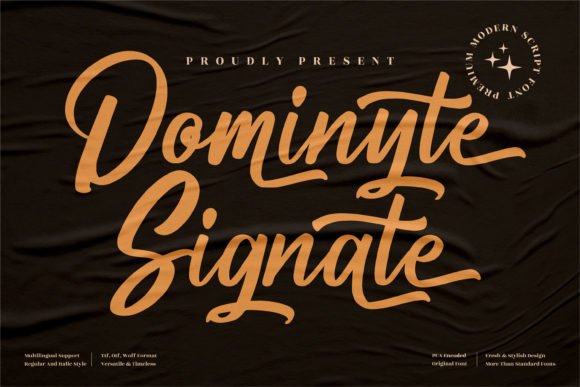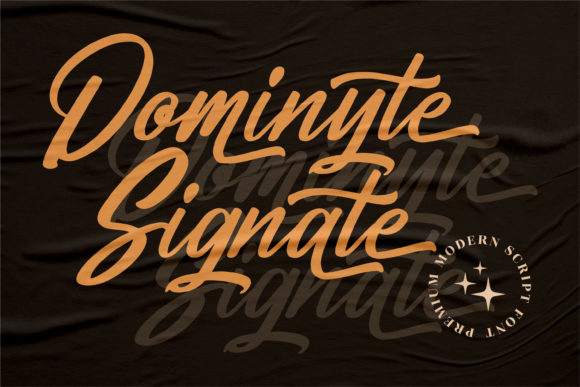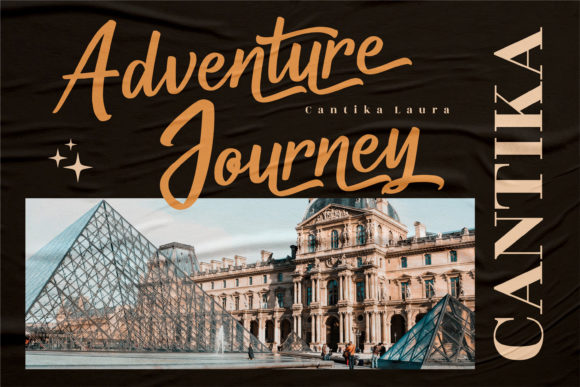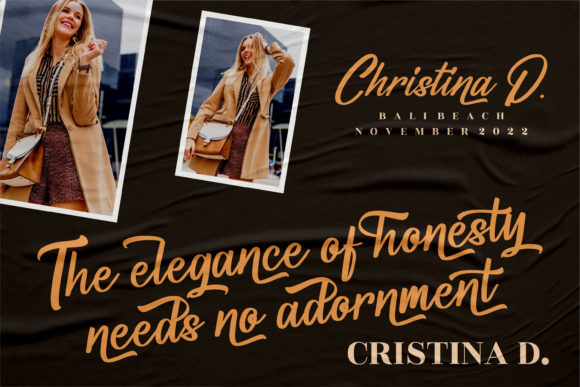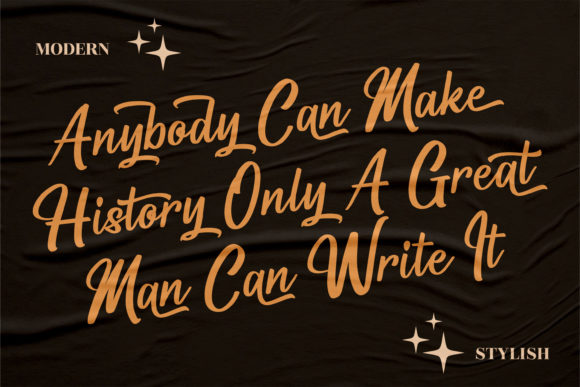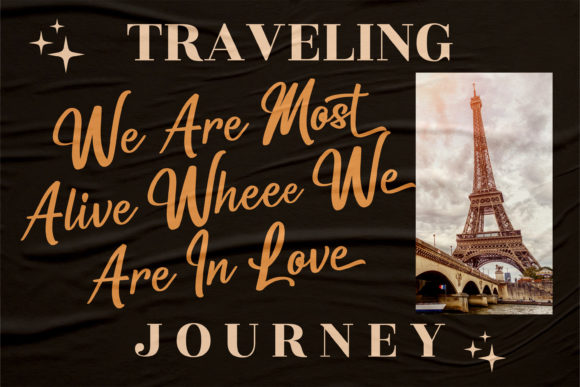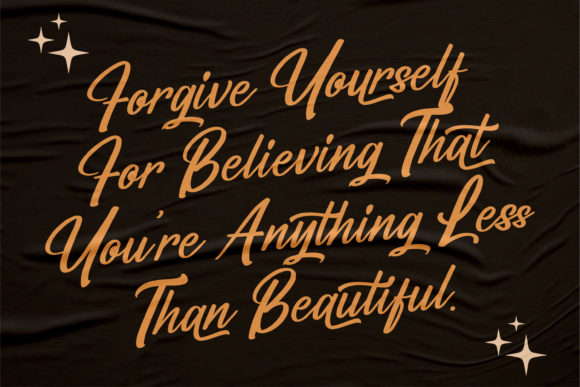
Discover the Whimsy of Dominyte Signate Font
Have you ever been working on a design project, and suddenly, the perfect font pops into your head, bringing your entire concept to life? That’s exactly what happened to me when I stumbled upon the enchanting Dominyte Signate Font. Its charming, playful characters seem to dance along the baseline, adding a touch of whimsy to any design.
As a versatile script font, Dominyte Signate Font is perfect for a wide range of applications, from elegant invitations and wedding stationery to fun and quirky social media graphics. Its PUA encoding makes it easy to access all the amazing glyphs and ligatures, giving you the freedom to get creative and experiment with different combinations.
For designers, Dominyte Signate Font is a valuable addition to any font collection, offering a unique and eye-catching style that’s sure to elevate your designs and set them apart from the crowd.
Dominyte Signate Font Key Features
- Font Family: Dominyte Signate Font is a unique, high-end font family designed for luxury branding and premium designs.
- Unique Characteristics: Features intricate details, subtle nuances, and elegant lines that evoke a sense of sophistication and refinement.
Designer Review: Dominyte Signate Font
Overall, I have mixed feelings about the Dominyte Signate Font. While it has some great qualities, it falls short in certain areas. Let’s dive in and explore what works well and what doesn’t.
- ✨ Unique character set: Dominyte Signate Font has a distinctive set of characters that can add a touch of elegance to your designs.
- ✨ Good for titles: The font is well-suited for use in titles and headings due to its strong, bold lines.
- ⚠️ Limited legibility: At smaller font sizes, the characters can become difficult to read, which may limit its use in body text.
- ⚠️ Limited language support: Dominyte Signate Font may not support all languages, which can be a problem for designers working on international projects.
- ⚠️ Not ideal for paragraphs: The font’s unique character set can make it difficult to read in large blocks of text.
While Dominyte Signate Font has some great qualities, its limitations may make it less suitable for certain design projects. If you’re looking for a font to use in titles or headings, it’s definitely worth considering. However, for body text or paragraphs, you may want to explore other options.
Tips for Getting the Most Out of Dominyte Signate Font
To get the most out of Dominyte Signate Font, consider the following tips:
- Use the font in bold and italic styles to add emphasis to your text.
- Pair the font with a clean and simple background to let the text stand out.
- Use the font in combination with other design elements, such as images or shapes, to create a visually appealing design.
Alternatives to Dominyte Signate Font
The Great Vibes Font is a modern, elegant script font designed by Handmade Fonts. It is ideal for use in invitations, wedding stationery, and other formal events. Great Vibes Font is more cursive and flowing than Dominyte Signate Font, making it perfect for adding a touch of sophistication to your designs.
The Pacifico Font is a beautiful, handwritten font designed by Juan Pablo del Peral. It is suitable for use in headings, titles, and other prominent text elements. Pacifico Font is more casual and relaxed than Dominyte Signate Font, making it perfect for use in blog posts, magazine articles, and other informal content.